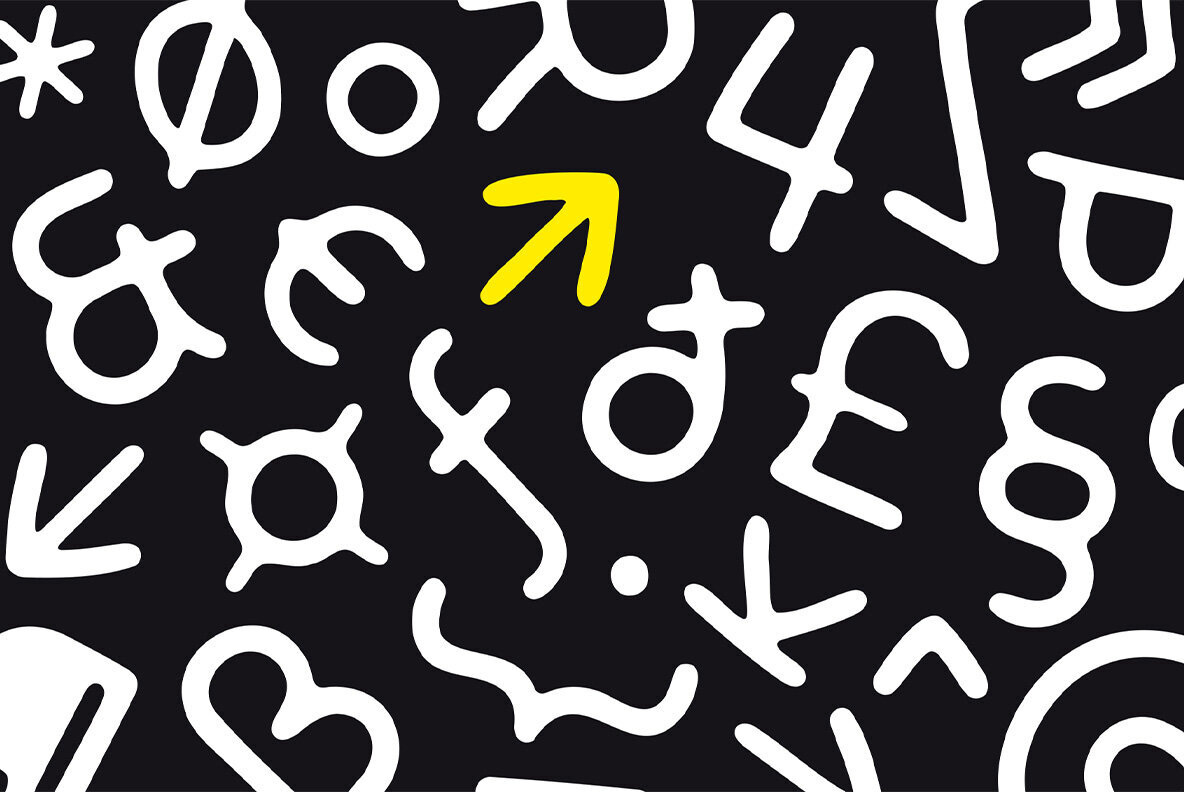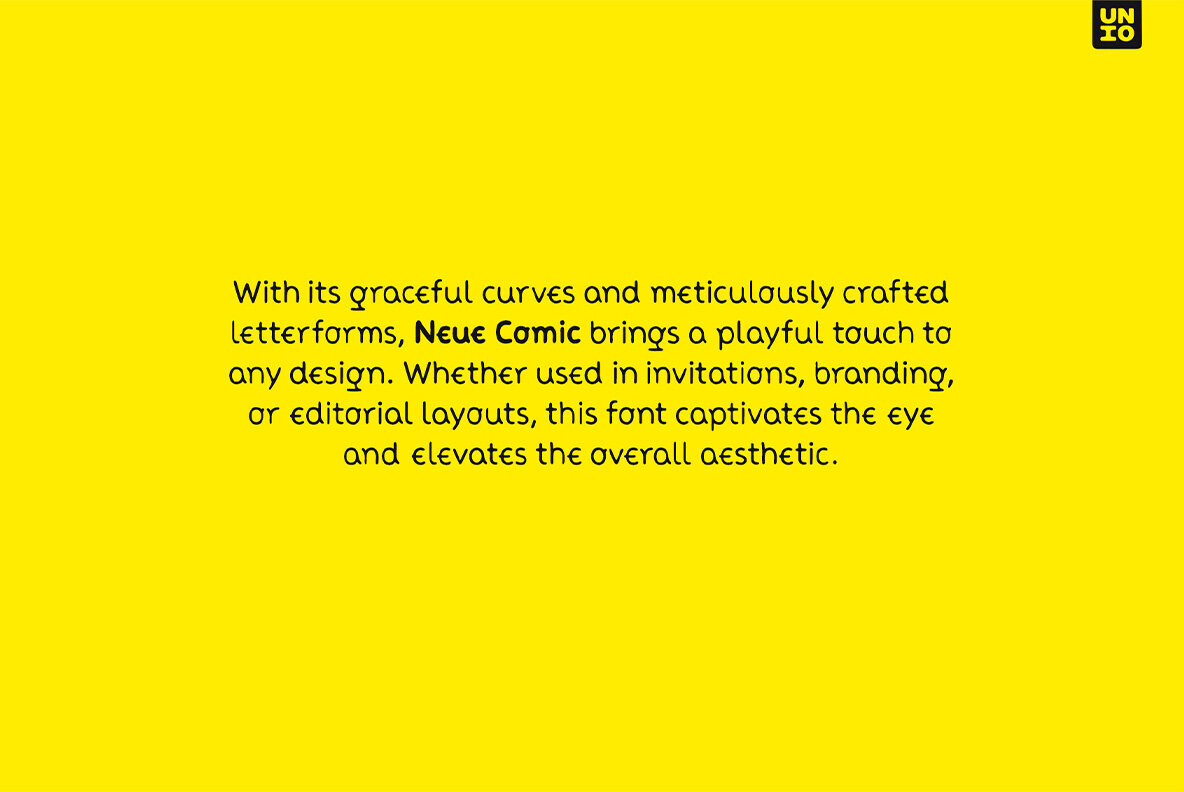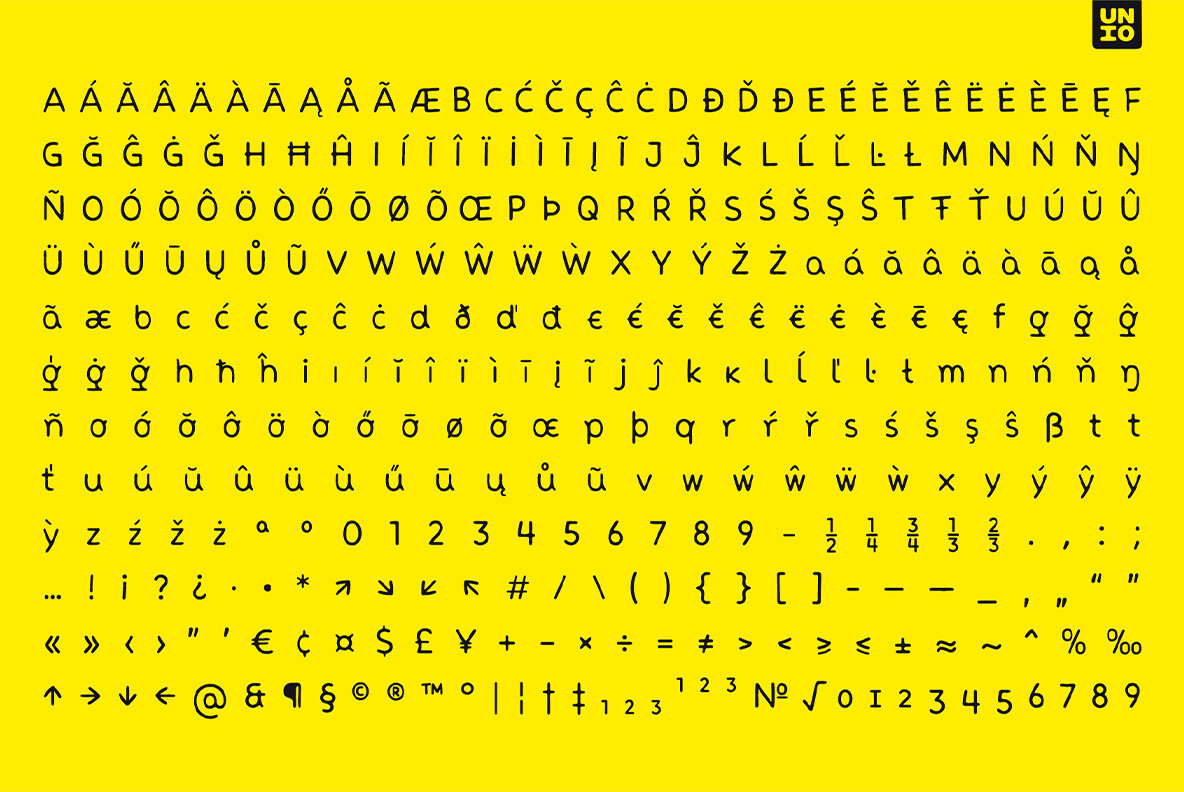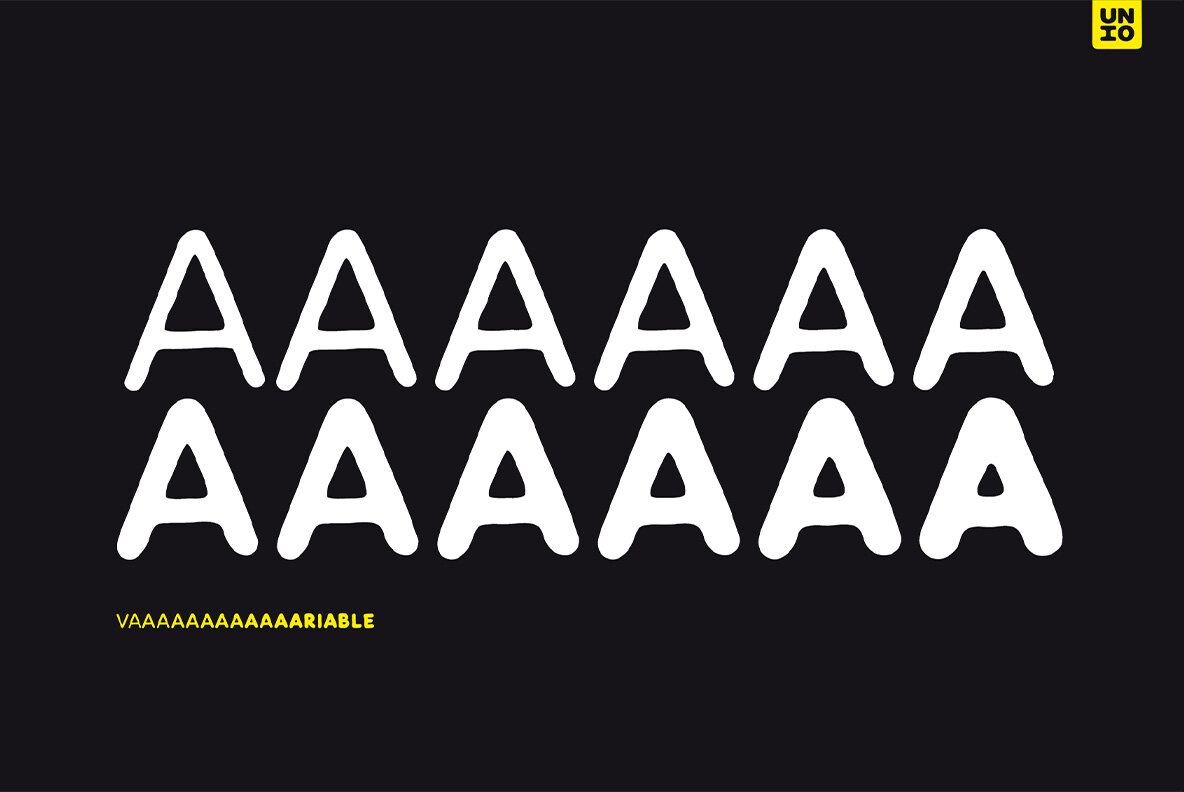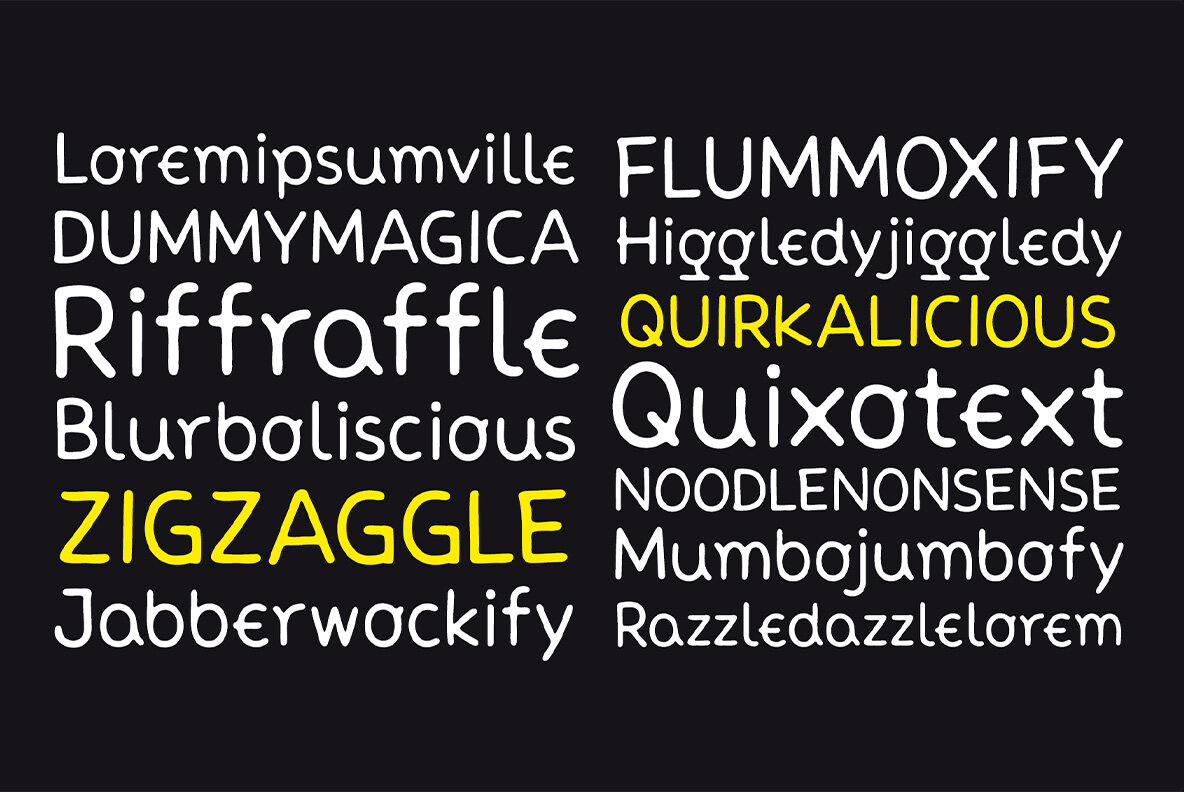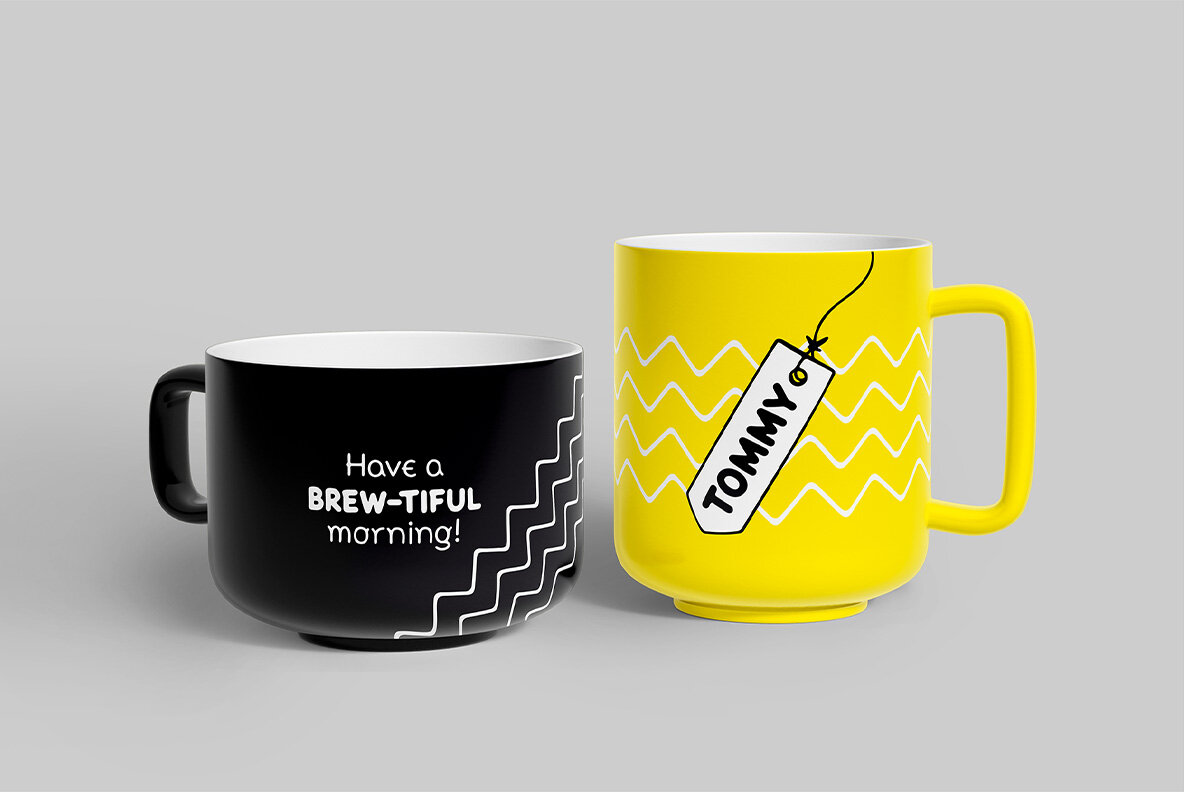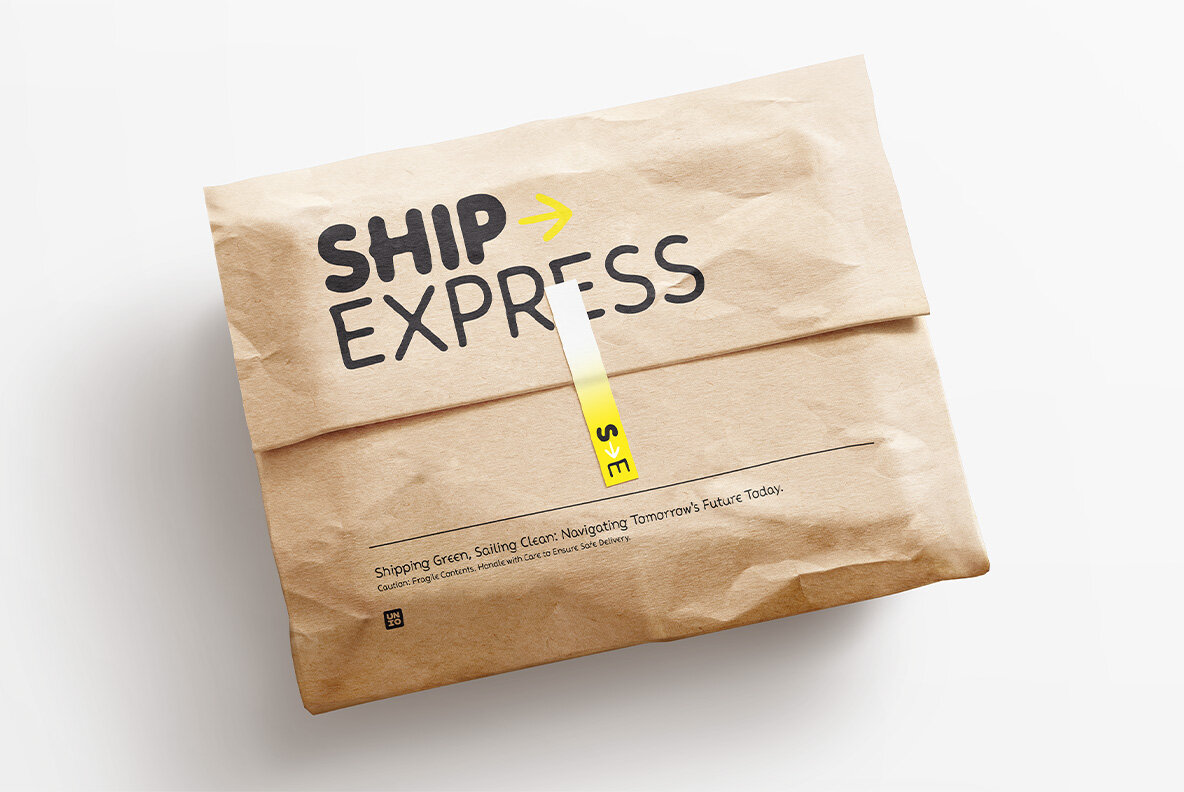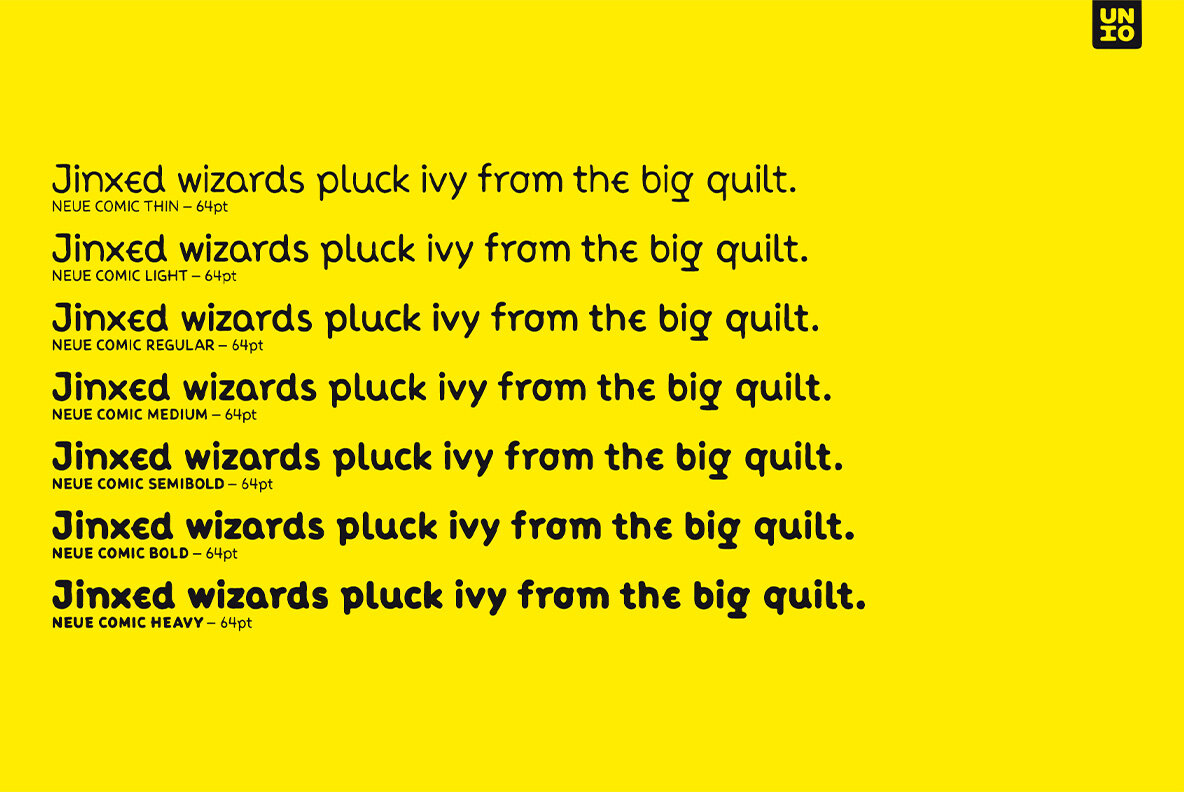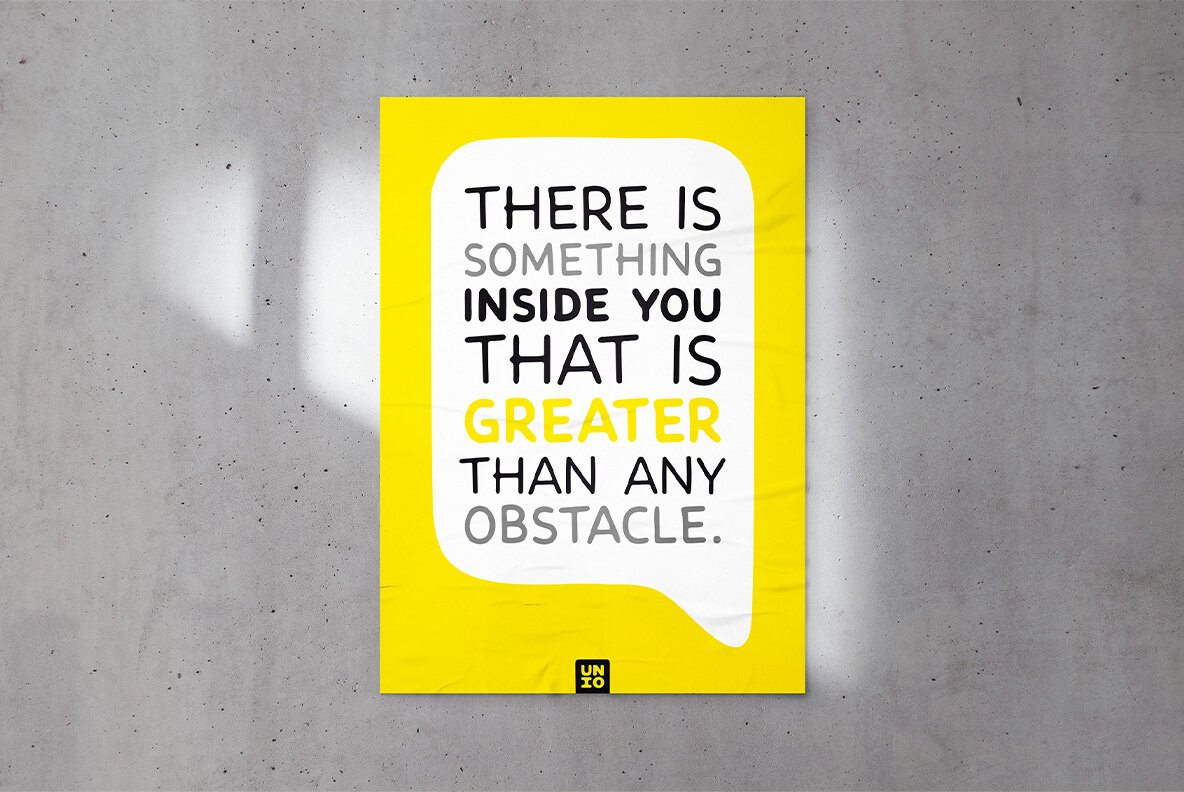
Neue Comic Font
Meet "Neue Comic," a rounded typeface making a bold entrance into the design scene, aiming to redefine the delicate balance between playfulness and practicality in typography. Crafted with the recognition that rounded aesthetics enhance information retention and legibility, Neue Comic delivers a distinct, rhythmic design that breaks through traditional design boundaries. Reflecting on the divisive legacy of Comic Sans, we pondered: Is it really deserving of all the hate? Comic Sans entered the typography scene in 1994 with the noble goal of injecting fun into casual contexts. However, it fell victim to misuse and eventually succumbed to an undeserved sense of imposter syndrome. This prompted us to create a typeface that transcends these limitations. Inspired by the non-connecting script of comic book lettering, Neue Comic seeks to recapture the charm of the '90s while acknowledging the genuine intention behind Comic Sans—offering accessibility and friendliness. Avoiding the pitfalls of overuse, Neue Comic presents itself with seven weights and corresponding obliques, showcasing the flexibility of a variable version. In a world where fonts often lack humor, Neue Comic invites designers to explore its versatility. Armed with robust typographic features to support its visual appeal, Neue Comic challenges the notion that fun cannot coexist with sophistication. It revives the spirit of the '90s icon while paving a fresh path for the future of rounded typography. Neue Comic is not just a typeface; it's a celebration of the joy in design, proving that fun can indeed be cool.